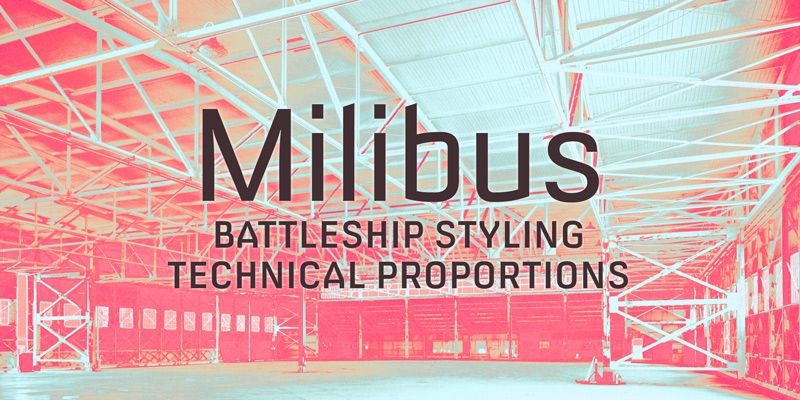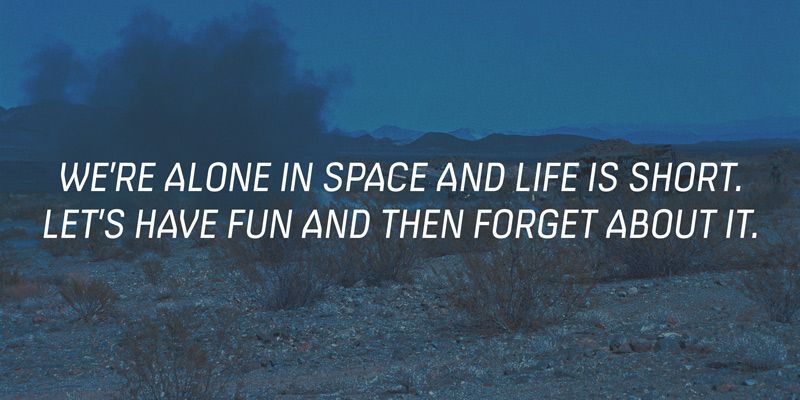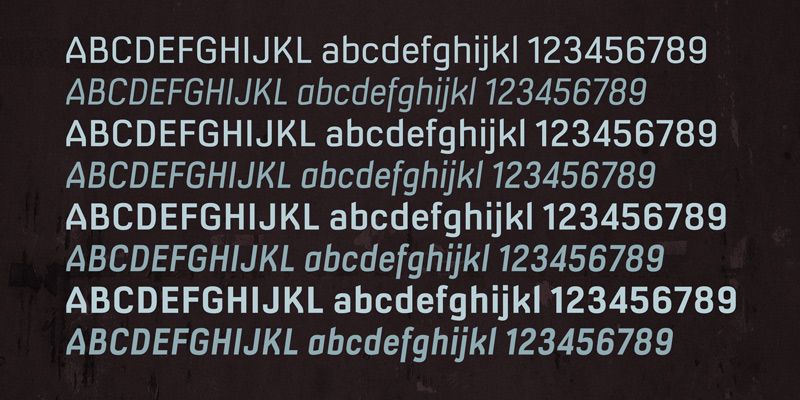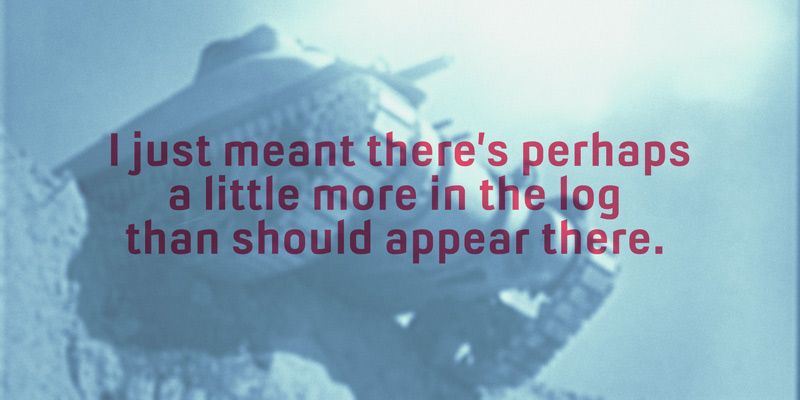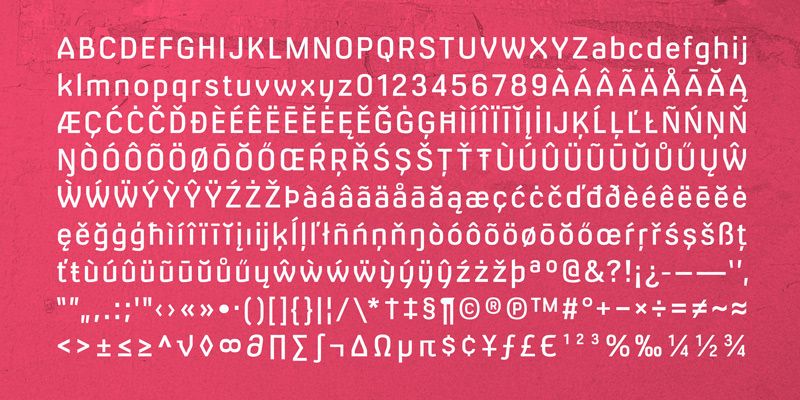
Milibus is a technical sans serif with small departures from the expected shapes. Its measured cuts and flattened diagonals give labels and headings an engineered character while leaving the words direct and legible. Light, Regular, SemiBold, and Bold, each with an italic, provide a practical range of emphasis, so a product system can distinguish model names, diagram headings, warnings, and brief explanations without changing tone. It is useful for equipment packaging, transport graphics, technical exhibits, and manufactured products that need a distinct voice without the visual noise of a full science-fiction alphabet.